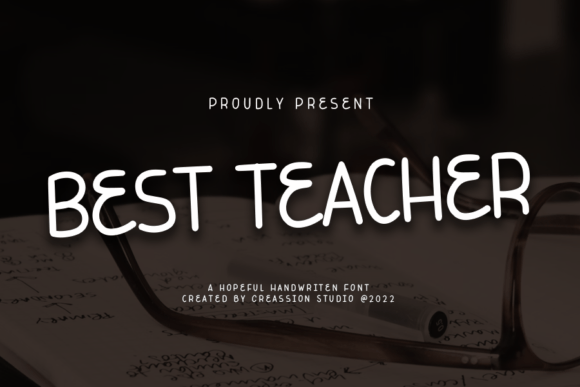
The Best Teacher Font: A Fun and Friendly Handwritten Delight
I’ll never forget the time I was working on a project for a client’s educational brand. I was tasked with creating a warm and inviting visual identity, but I was struggling to find the perfect font. That’s when I stumbled upon the Best Teacher font, and it completely transformed my design. In this article, I’ll share my experience with this beautiful font, its features, and how to make the most of it in your designs.
A Personal Review of Best Teacher Font
As a designer, I’m always on the lookout for fonts that can add a personal touch to my projects. Best Teacher font exceeded my expectations in many ways. Here’s what I love about it:
- ✨ Unique and playful feel: Best Teacher font has a distinctive handwritten style that’s both fun and friendly.
- ✅ Highly legible: Despite its playful nature, the font remains clear and easy to read, making it perfect for body text.
- 💫 Versatile: Best Teacher font can be used for a wide range of projects, from educational materials to crafts and hobbies.
While Best Teacher font is amazing, it’s not perfect. Here are a few quirks to keep in mind:
- 🤔 Limited use in formal contexts: Due to its playful nature, Best Teacher font might not be the best choice for formal or corporate designs.
- ⚠️ Some characters may require manual kerning: As with any font, you might need to adjust the kerning for certain character combinations to achieve optimal results.
- Experiment with OpenType features like ligatures and stylistic alternates to add visual interest to your text.
- Access Glyphs and OpenType features to customize your text and make it more engaging.
The Story Behind Best Teacher Font
Best Teacher font was crafted with love by a team of designers who wanted to create a beautiful and refreshing handwritten font. The font’s creator drew inspiration from classic handwriting styles, infusing them with a modern twist. The result is a font that’s both nostalgic and fresh.
| Font Name | Best Teacher Font |
| Author | Creassion Studio |
- Q: What type of projects is Best Teacher font suitable for?
- A: Best Teacher font is perfect for educational materials, crafts, hobbies, and creative projects.
- Q: Does Best Teacher font support OpenType features?
- A: Yes, Best Teacher font supports OpenType features like ligatures and stylistic alternates.